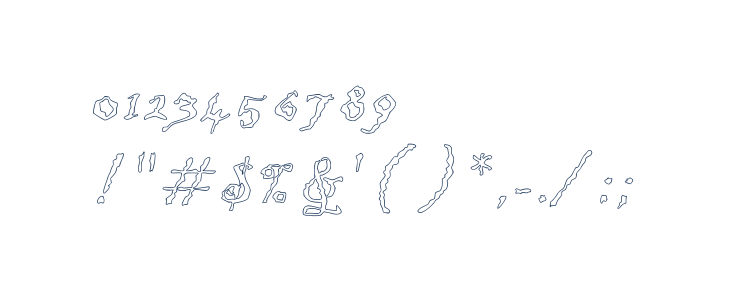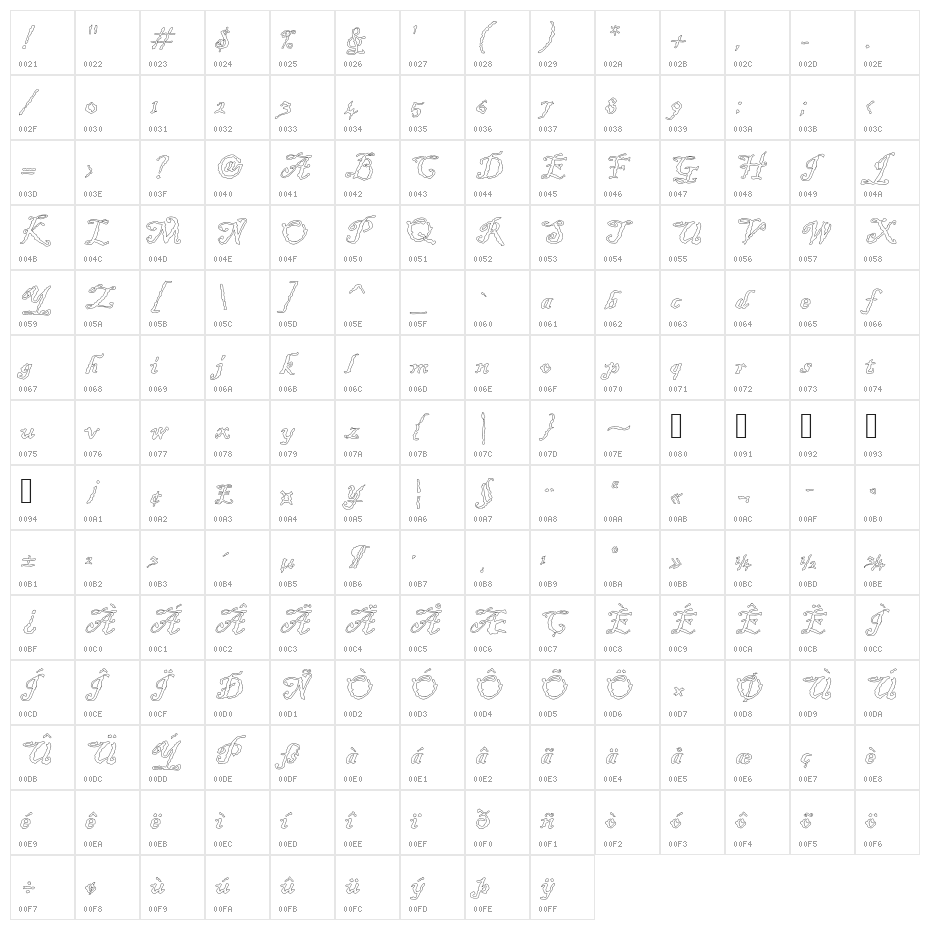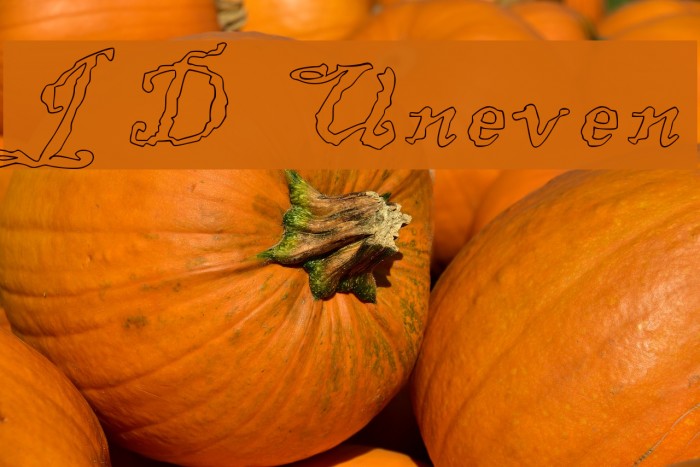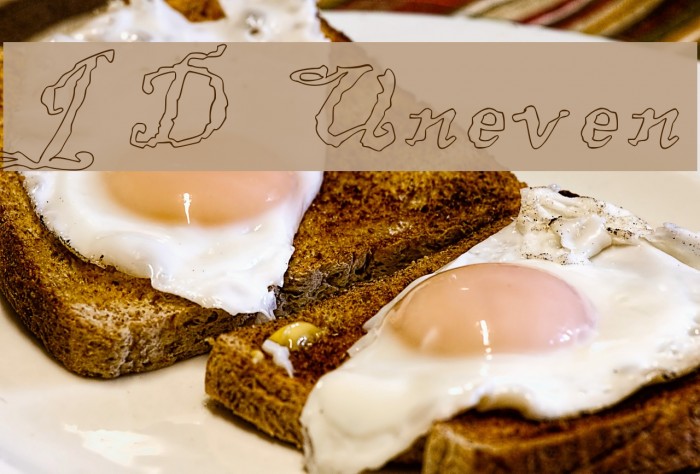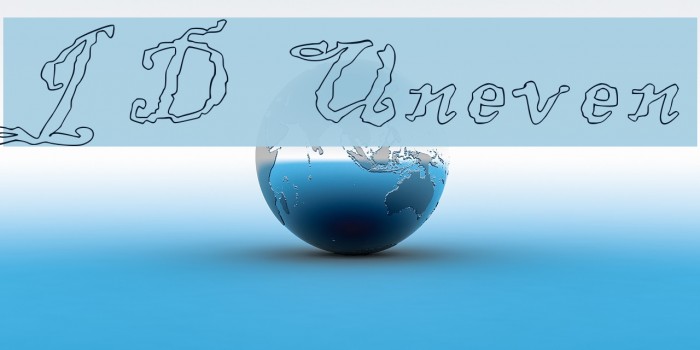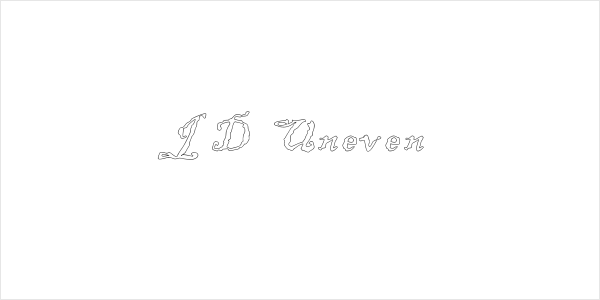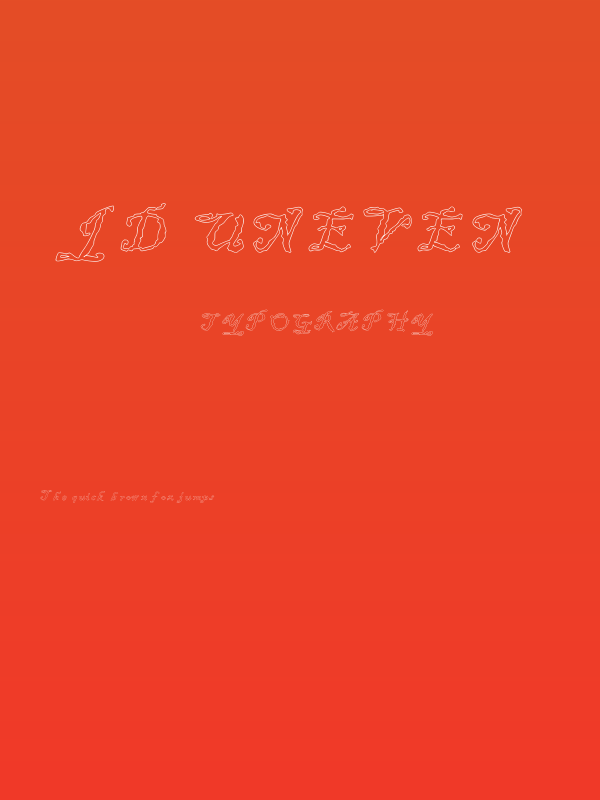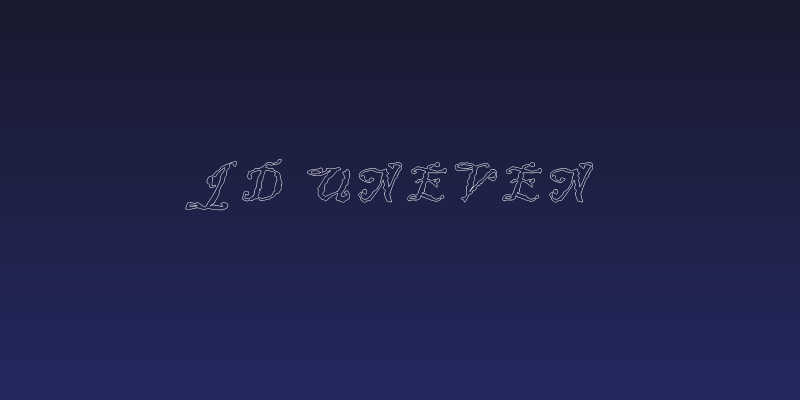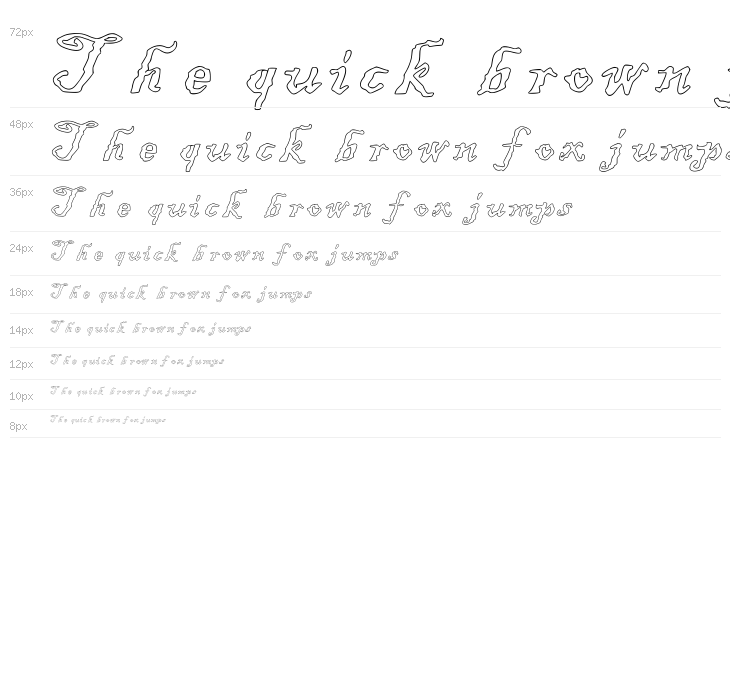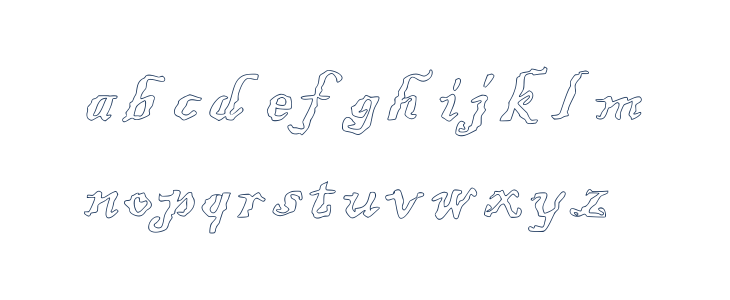
JD Uneven Font
JD Uneven Description
This font features a unique, hand-drawn style with uneven, wavy lines that give it a whimsical and artistic appearance. The characters are outlined with a rough, sketch-like quality, creating a sense of movement and fluidity. The uppercase and lowercase letters maintain a consistent style, with exaggerated curves and irregular strokes that add to its playful nature. Numbers and special characters follow the same design principles, ensuring a cohesive look across all glyphs. This font's distinctiveness makes it stand out, offering a creative flair that is both eye-catching and memorable.
| Overall Style | Artistic, Whimsical |
| Use Case | Logos, Posters, Invitations |
| Proposed Projects | Ideal for creative projects such as children's books, artistic posters, unique branding, and playful invitations. |